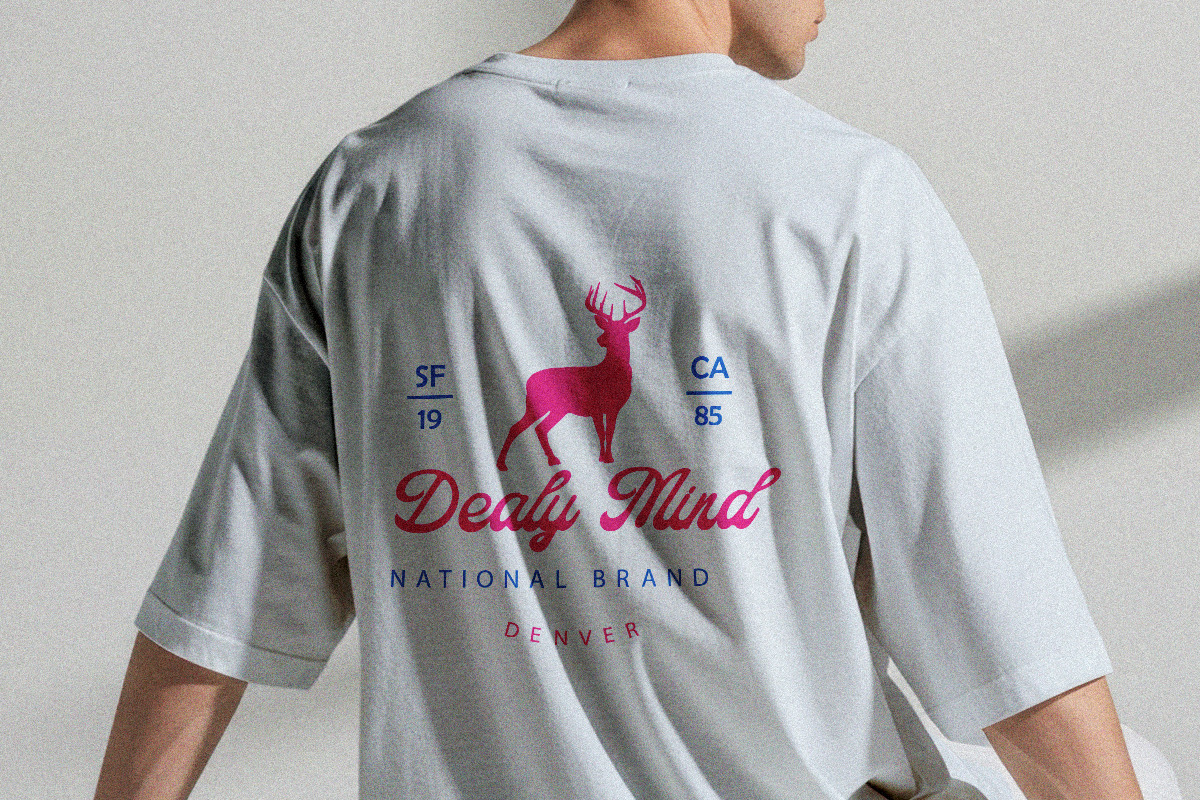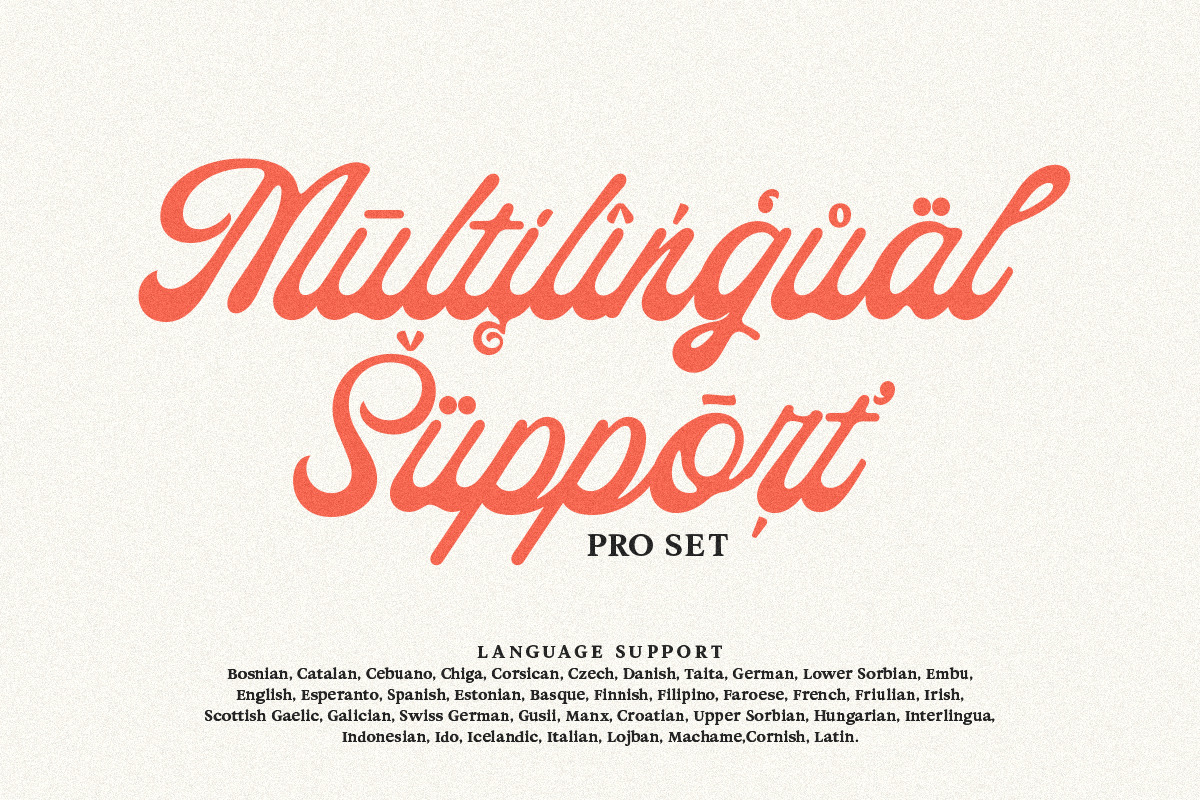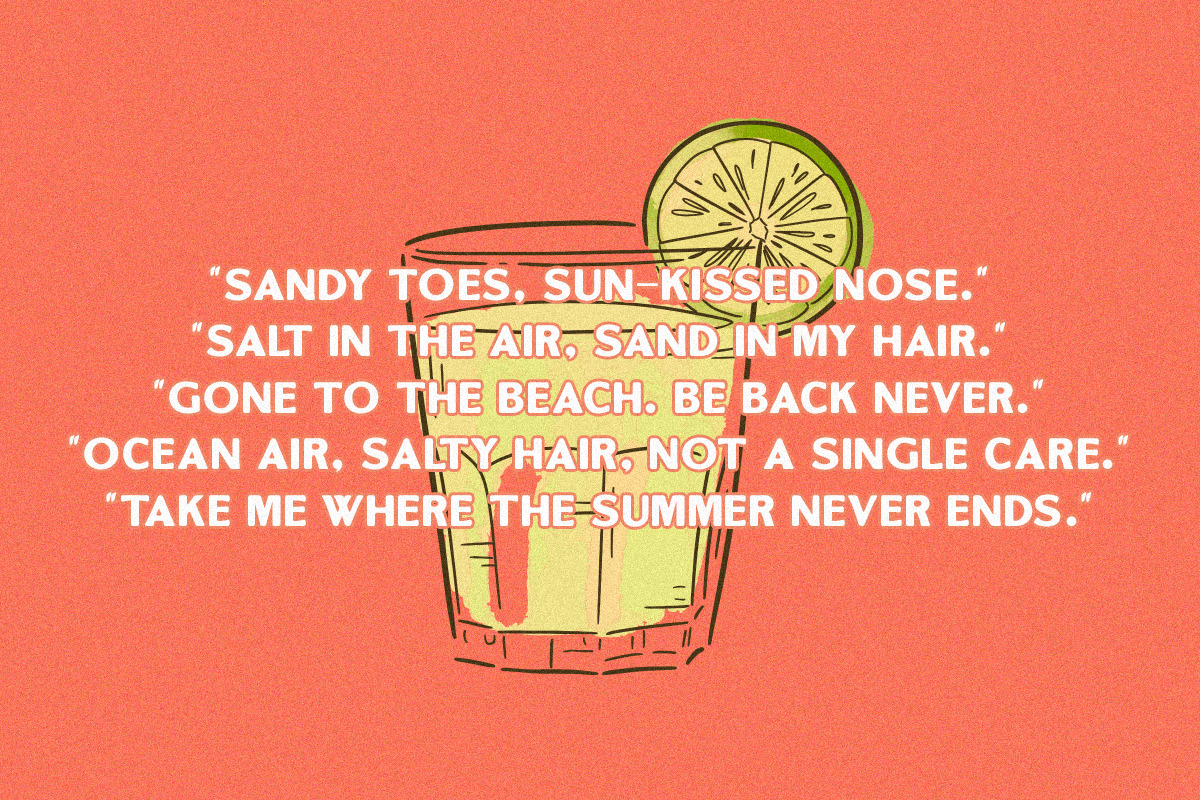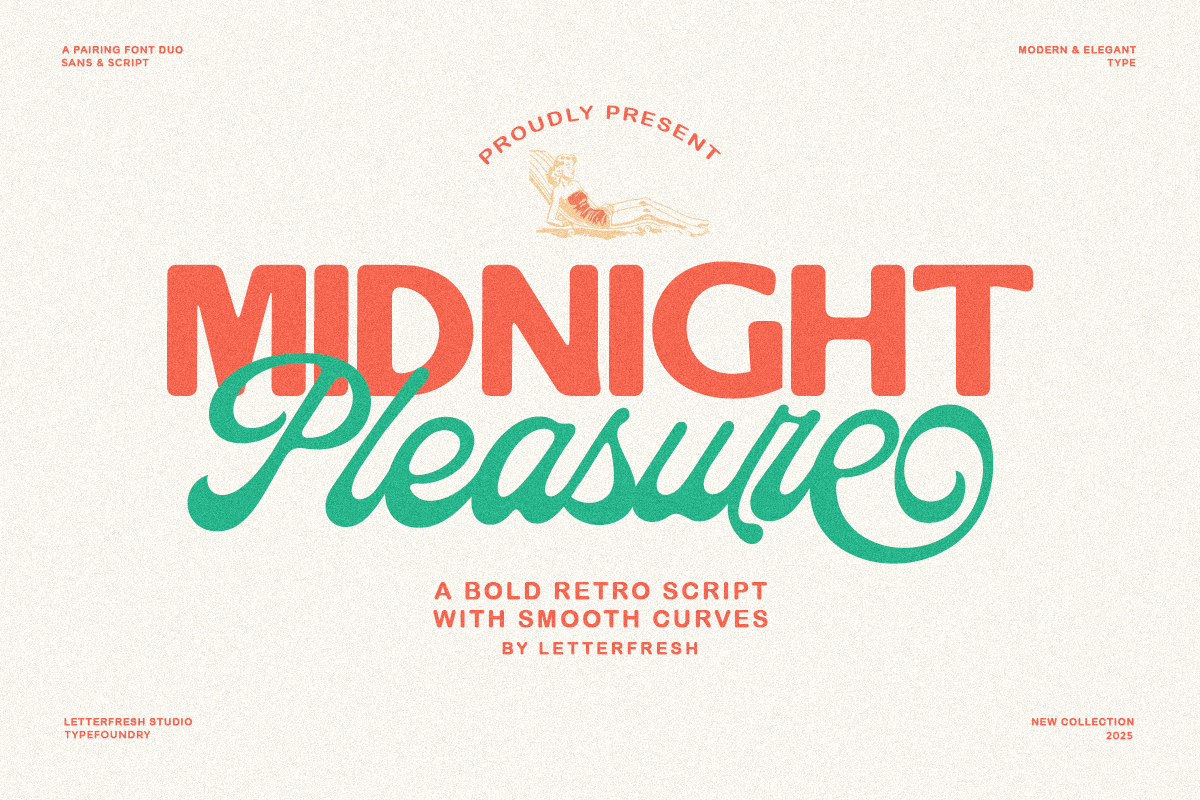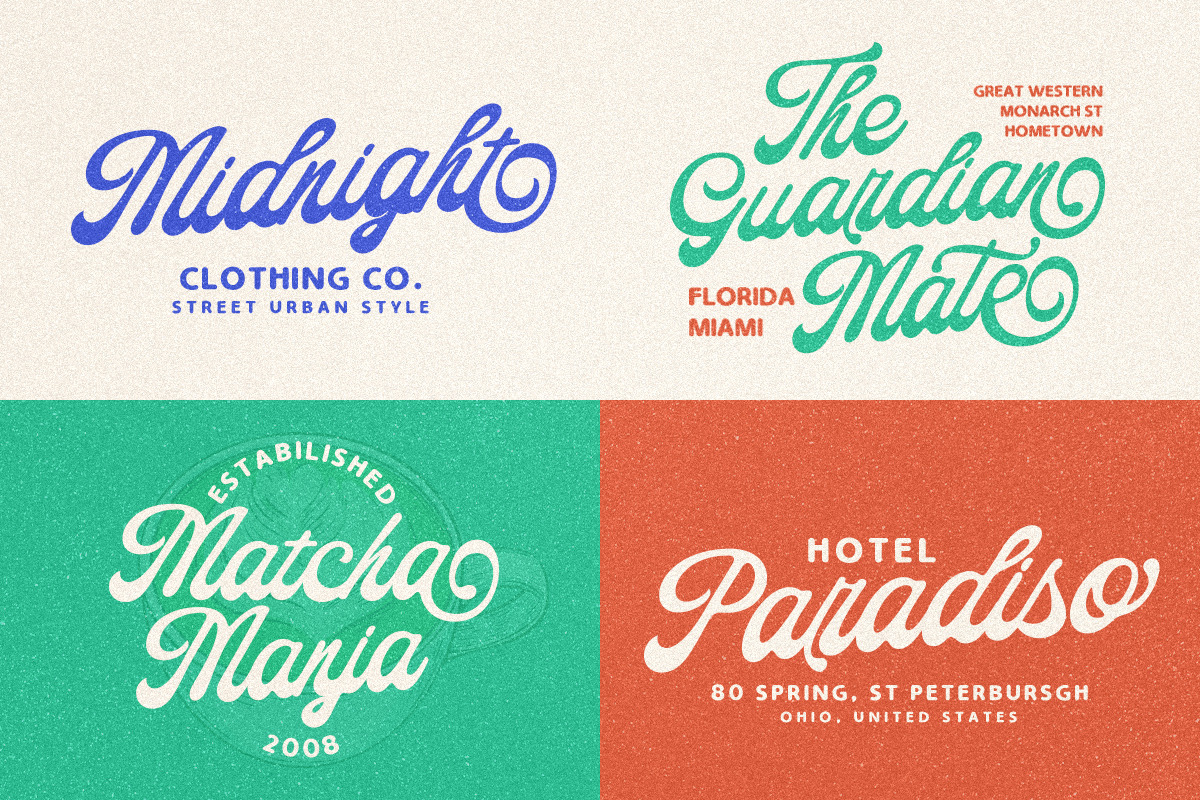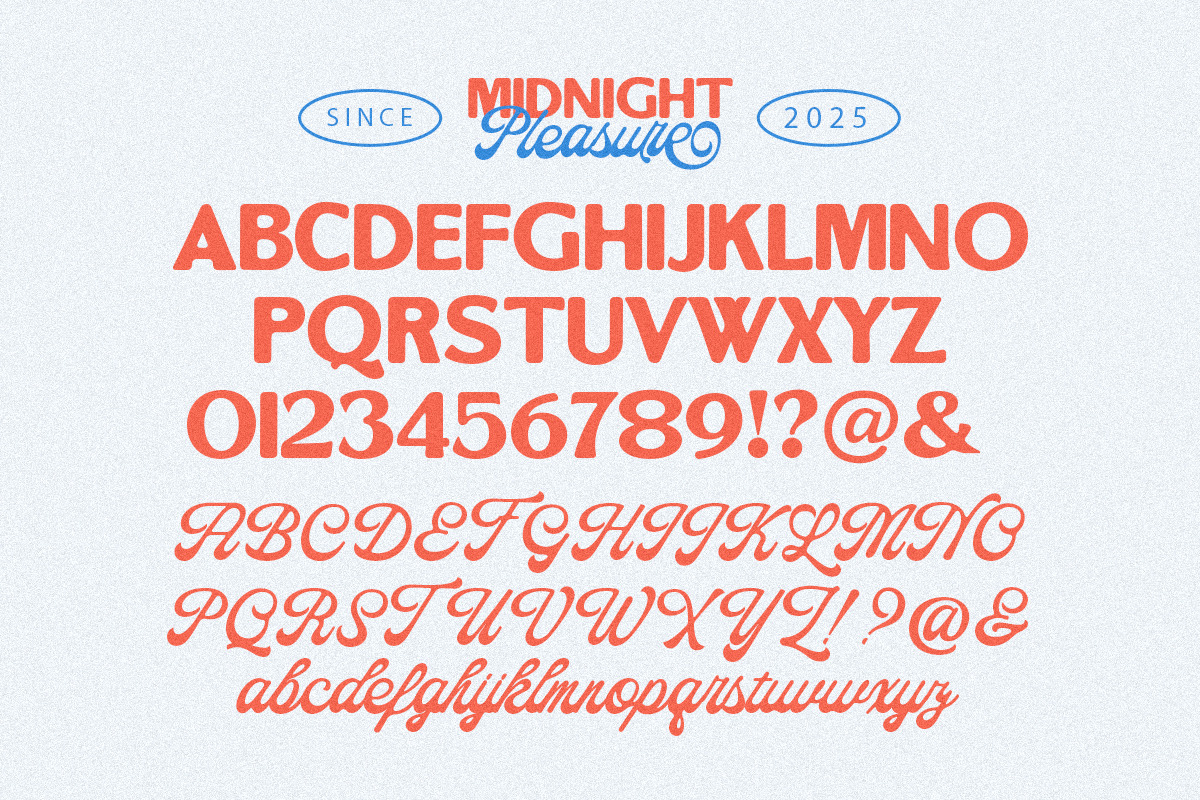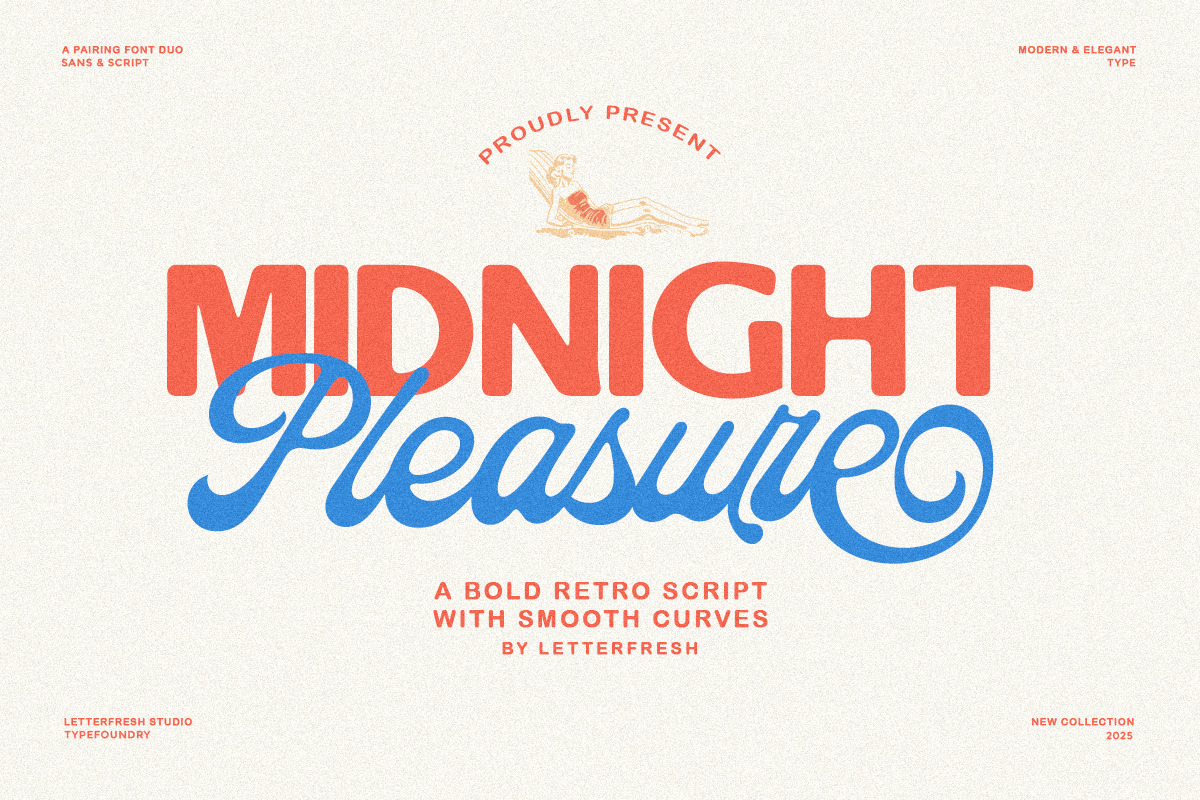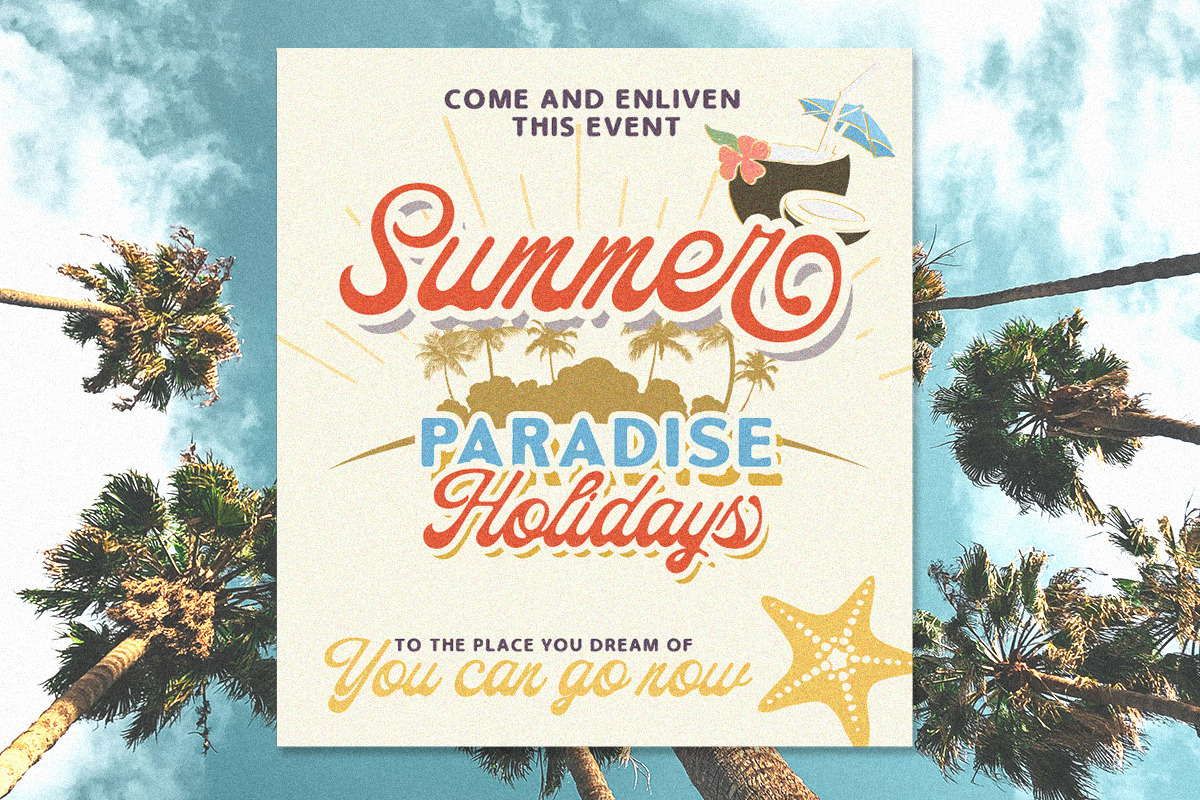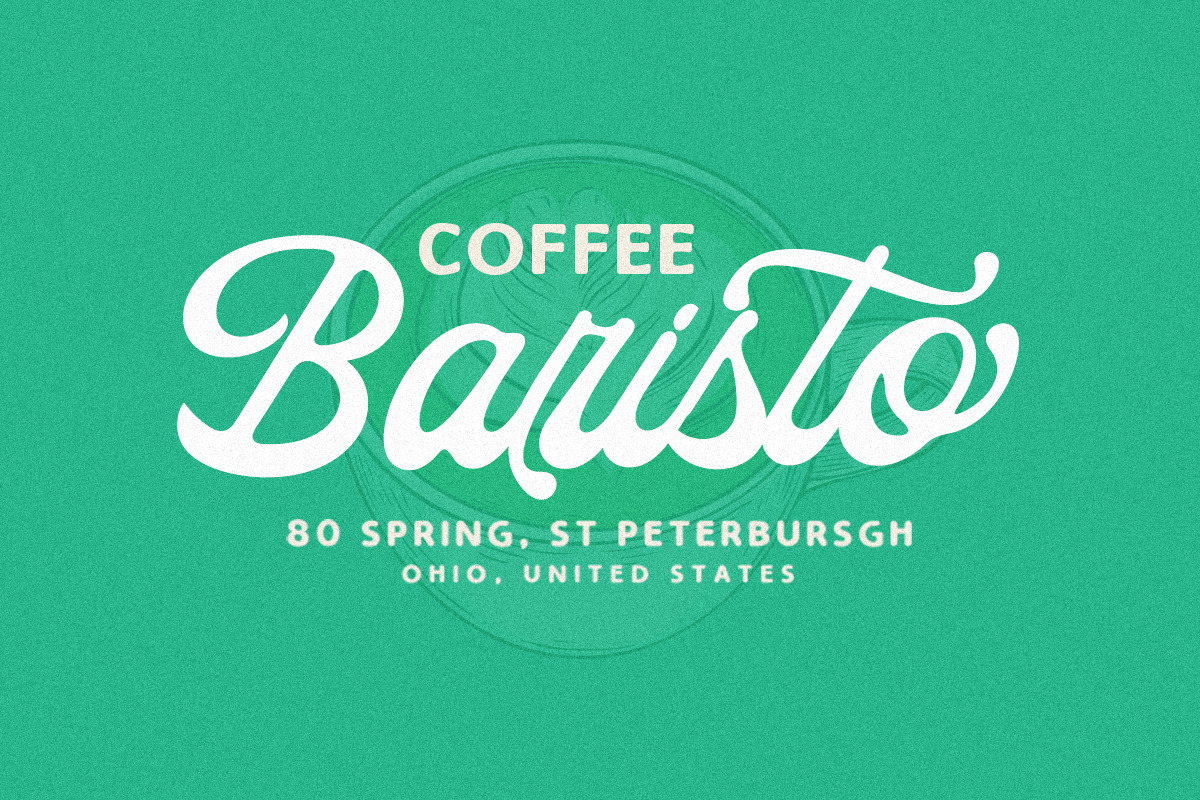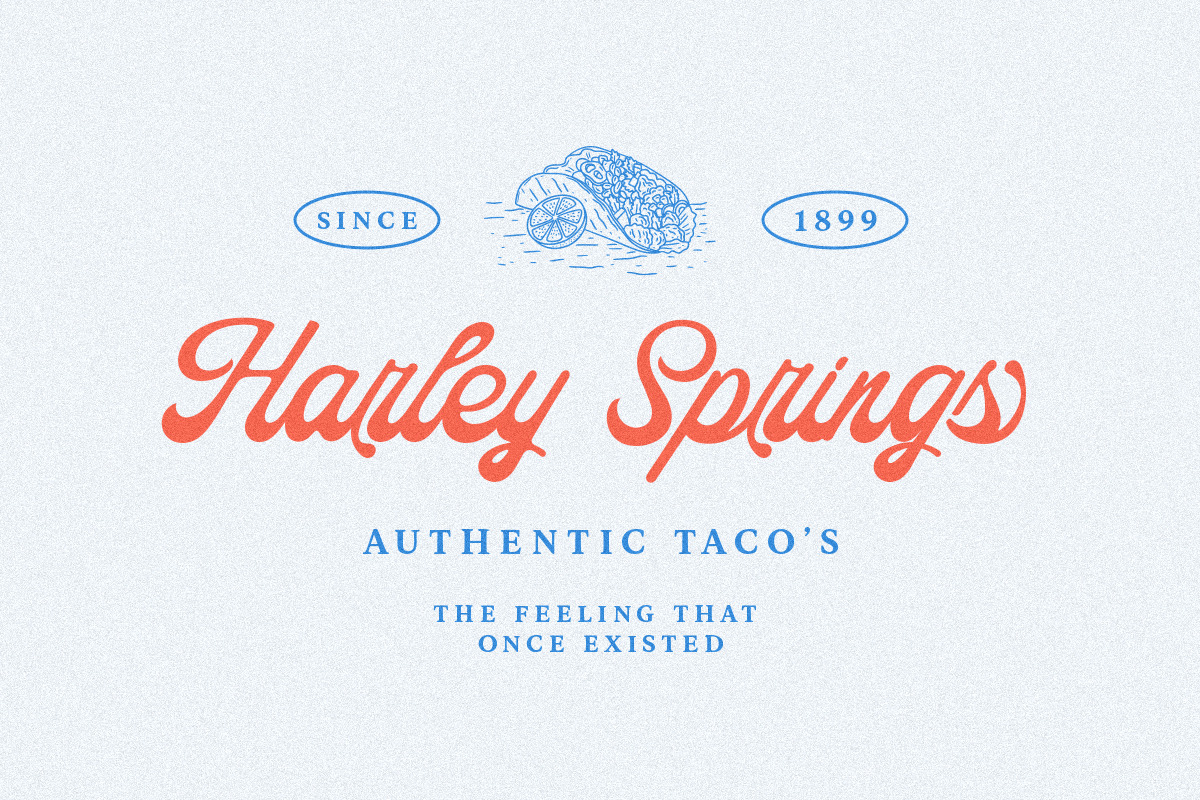
Midnight Pleasure - Font Duo!
Midnight Pleasure, a sweet and gentle font duo! With a bold, rounded sans font and a flowing handwritten script, this playful combination strikes the right balance between bold and friendly. Perfect for product labels, greeting cards, social media posts, branding projects, logo designs, packaging, quotes, and more.